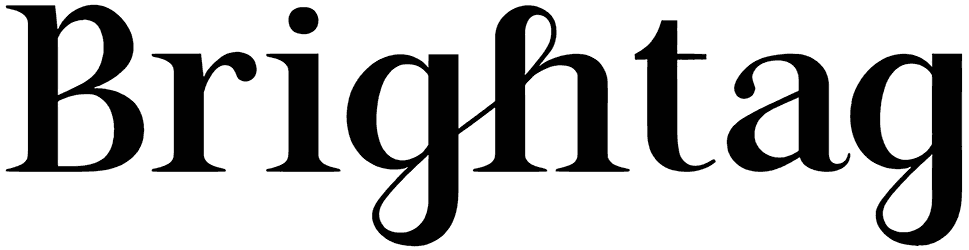
Brightag Font
Whether it is for a modern design or a classic one, using a serif font like this can always be a perfect choice to make it timeless. The popular visual of this elegant font is going to make your fashion event poster salient. With two versions, the Brightag font will make your design unique and memorable.